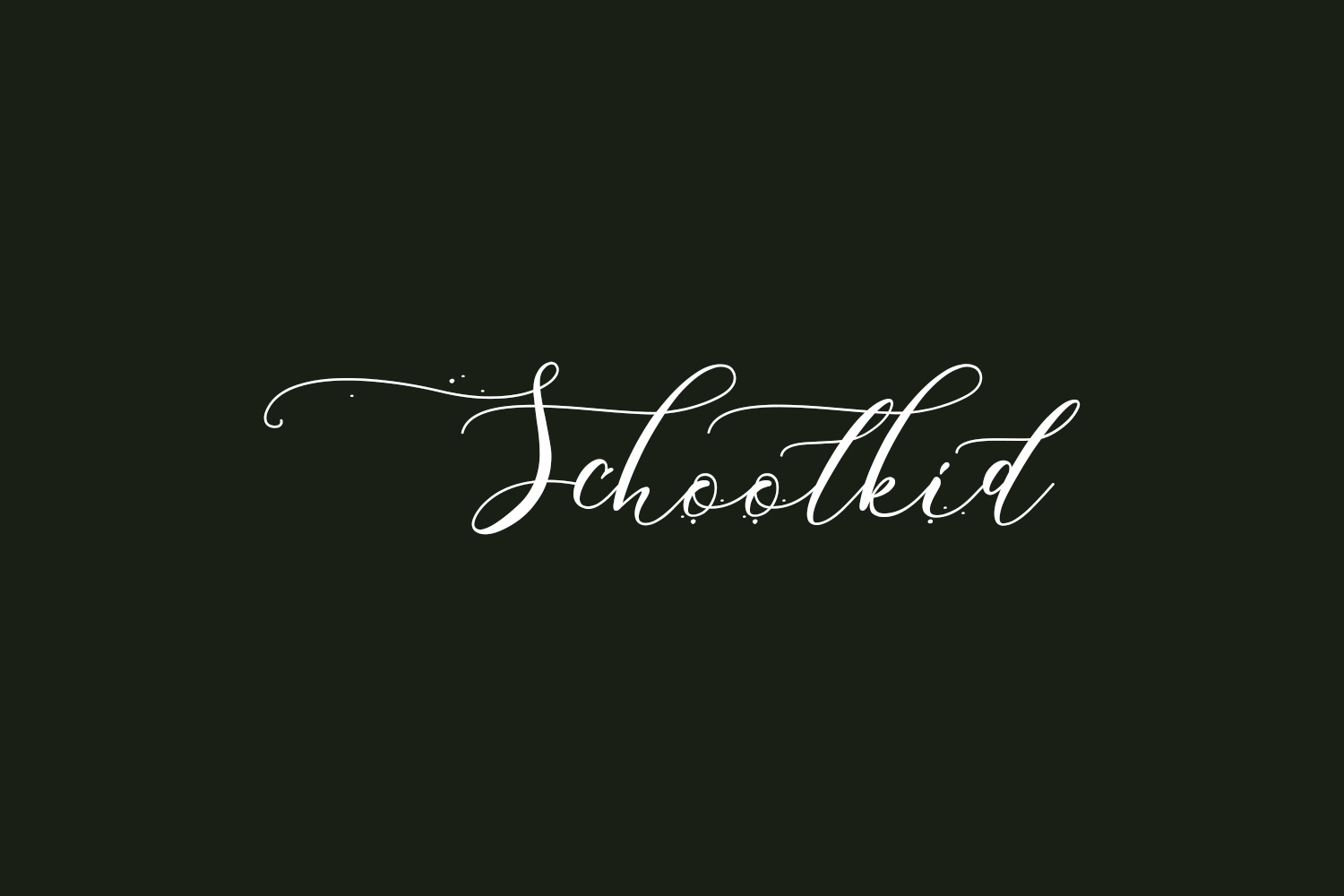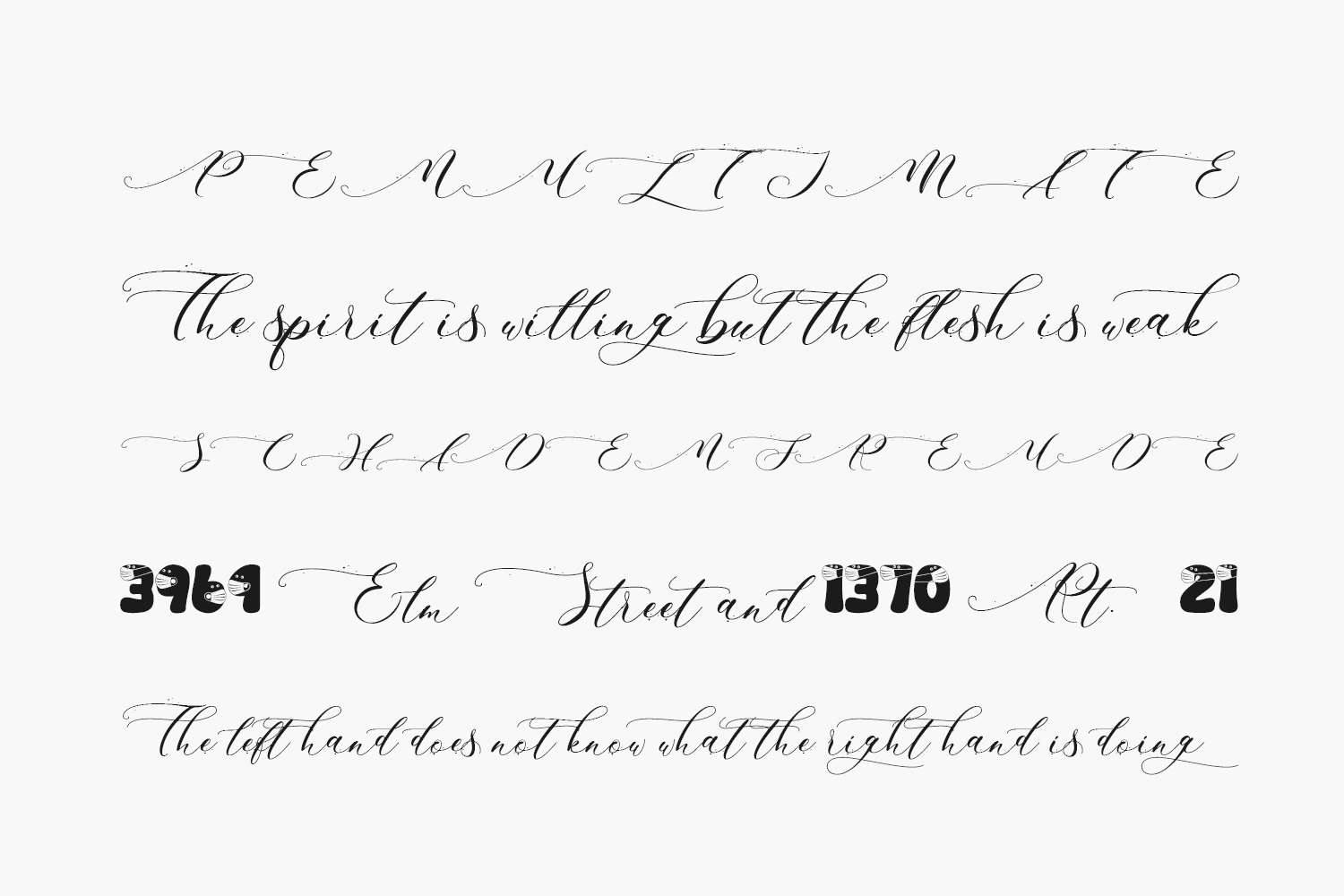
Schoolkid Free Font Family is a beautiful, textured script font that will add tons of style to your creative projects! This font looks amazing in feminine designs and adds an intriguing depth to your work. Schoolkid Free Font Family was designed by Typhoon Type™ is a demo and free for personal use only. Please purchase the full version for commercial use.